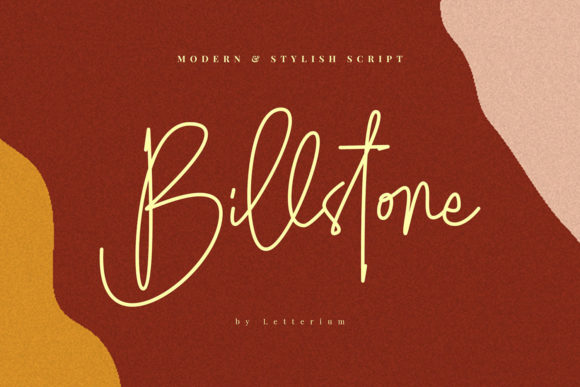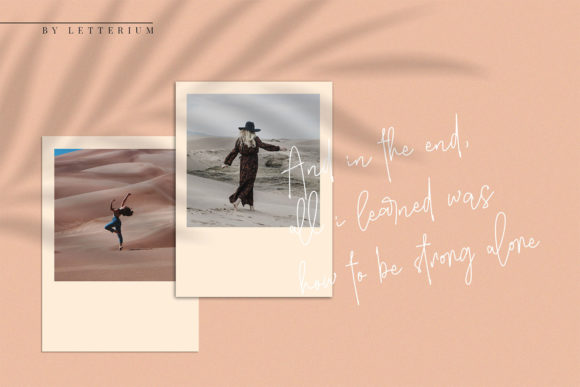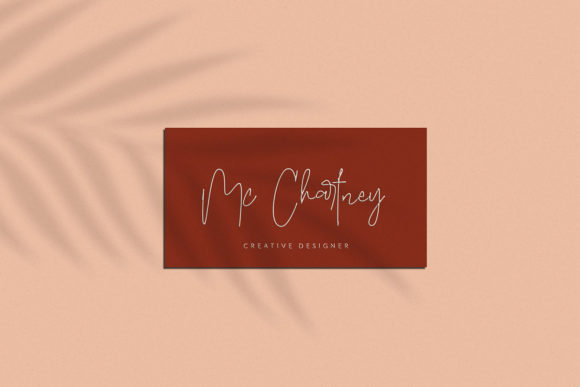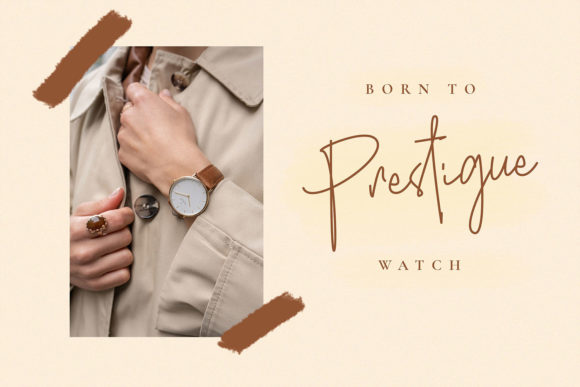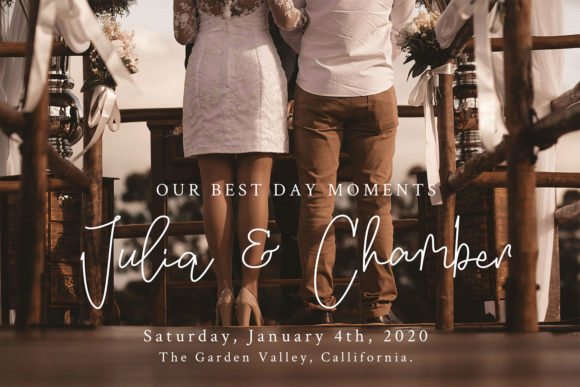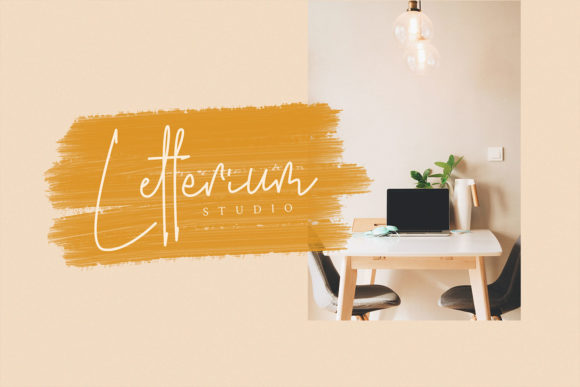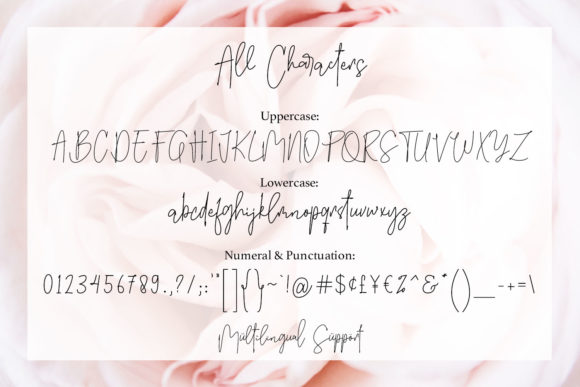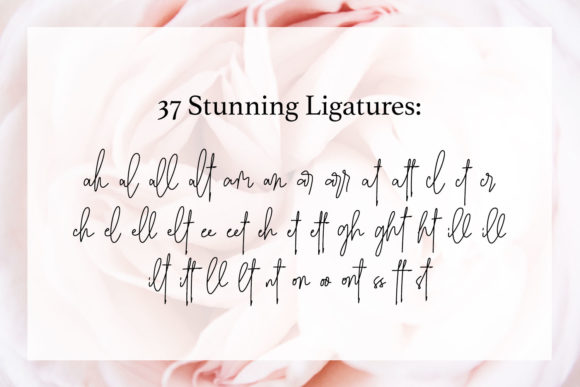
Billstone Font
About Billstone Font
Billstone is a classy handwritten font. Fall in love with its authentic feel and use it to create gorgeous wedding invitations, beautiful stationary art, eye-catching social media posts, and cute greeting cards.